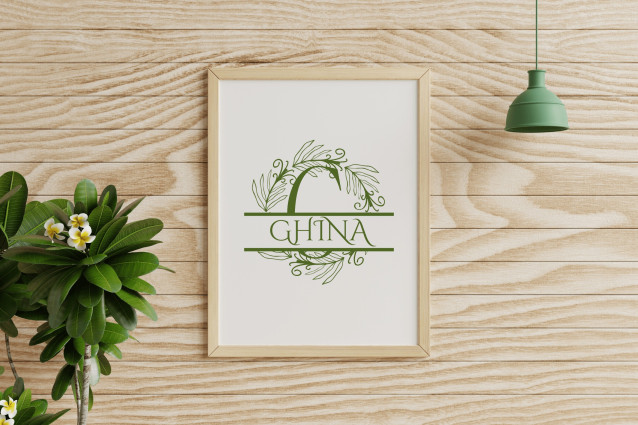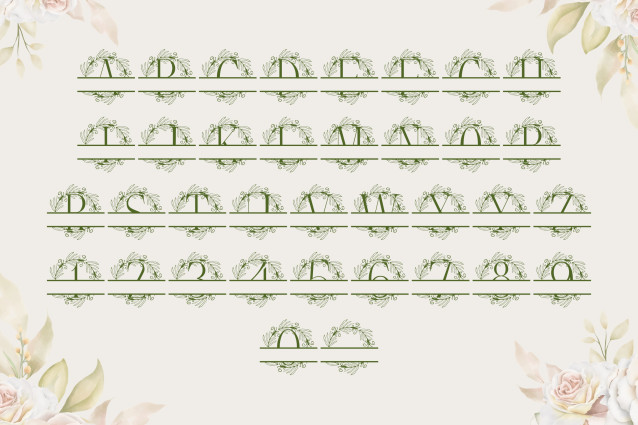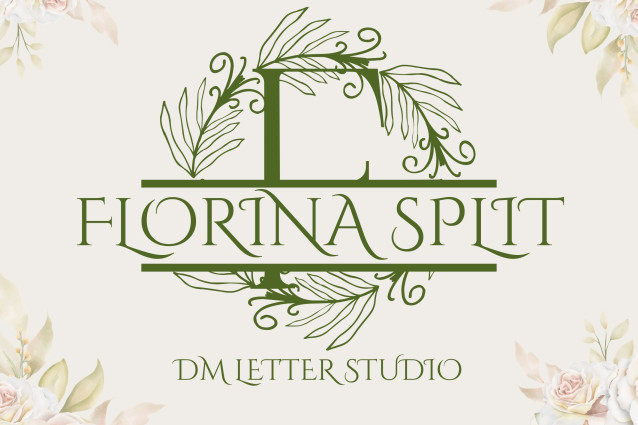
Florena Split Font
Florena Split Font is a sophisticated serif split monogram font that features uppercase initials with a clean horizontal divide—perfect for adding names, words, or personalized messages. Paired with delicate floral illustrations, it brings timeless romance and botanical charm to every design, ideal for Cricut projects, weddings, and feminine branding.